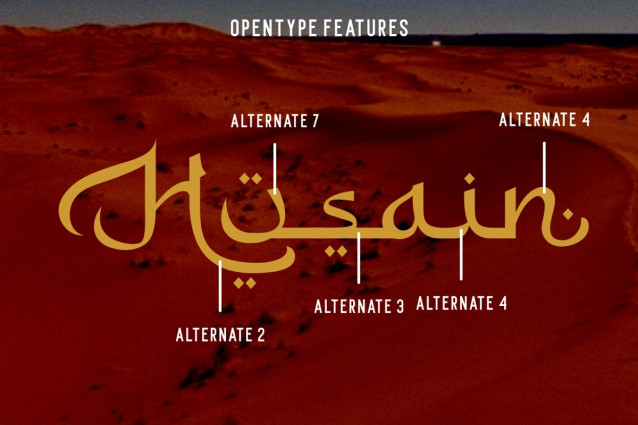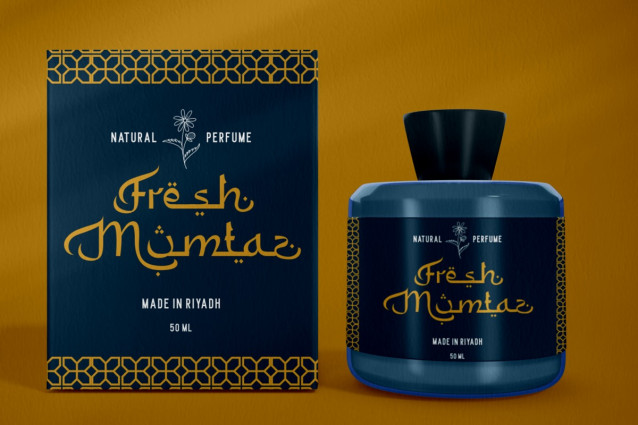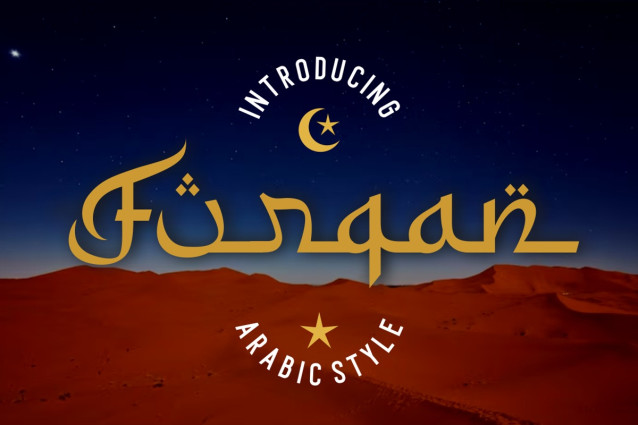
Furqan Arabic Font
Furqan Arabic Font beautifully encapsulates the essence of Arabic calligraphy, with its distinctive style that closely resembles traditional Arabic letters. Each character is adorned with intricate dots, paying homage to the intricate detailing found in classical Arabic writing. This font carries an air of authenticity and cultural richness, making it an excellent choice for a wide array of design purposes. From logos and branding materials to posters, product packaging, promotional items, titles, greeting cards, and invitations, Furqan seamlessly blends the timeless beauty of Arabic script with a modern touch.
With Furqan, your designs will be imbued with a unique blend of elegance and heritage. The font’s meticulous attention to detail, including the delicate dots on characters, adds an artistic and charming dimension to your typography. Whether you’re creating a visually stunning logo, designing captivating posters, or crafting invitations for special occasions, Furqan’s versatility ensures that your designs will stand out and leave a lasting impression.